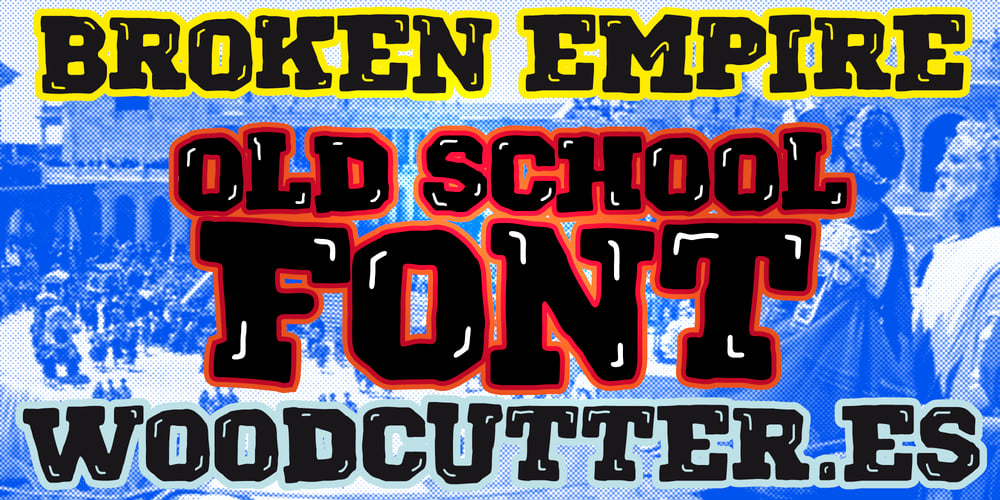
Broken Empire
Broken Empire font
Broken Empire Font Family was designed by Jordi Manero and published by Woodcutter. Broken Empire contains 1 styles and family package options. “Broken Empire” is an old school-style font with a classic university vibe. The uppercase letters are designed with a retro touch that evokes the aesthetic of traditional academic institutions. Each letter is adorned with subtle shadows that add depth and dimension, giving an impression of robustness and authority. This typeface is perfect for projects seeking a strong visual impact and a sense of tradition and prestige, such as logos, sports posters, or any design requiring a vintage style with a powerful presence.